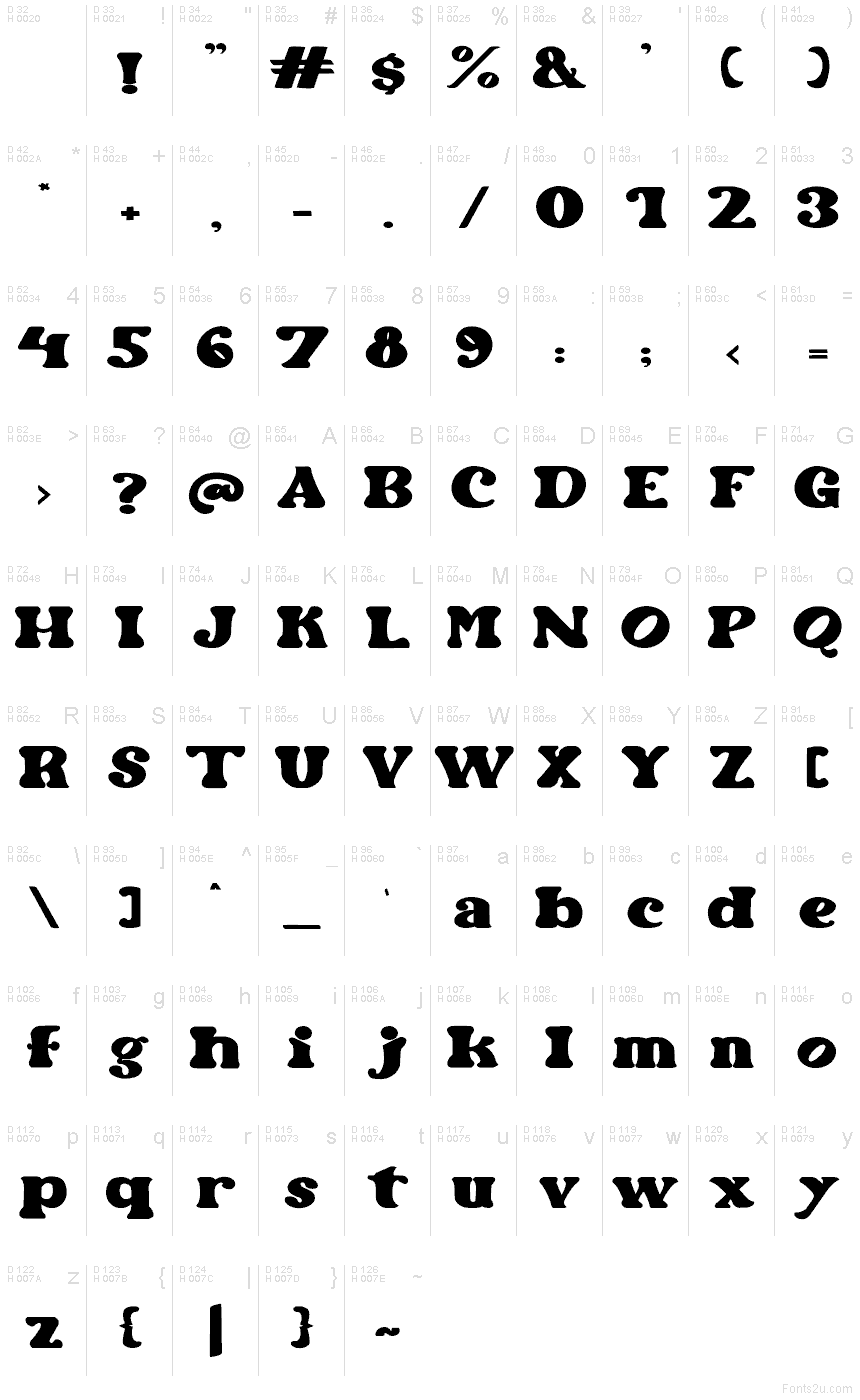
Rupture-Regular
Rupture font by Hatf Type is a retro display font with expanded width and bold weight. Its ornamental style makes it remarkable, eye-catching, vintage in feel, and with rich baroque influences. When seeking something expressive for specific graphic projects, Rupture can easily satisfy your needs with its artistic flair and aesthetic qualities.
Use this free font for stage branding designs along movie posters or concert flyers; printing stuff like brochures or invitations; featured artwork for social media or websites; typography logotypes; magazine covers; book titles & headings; printed T-shirts etc.